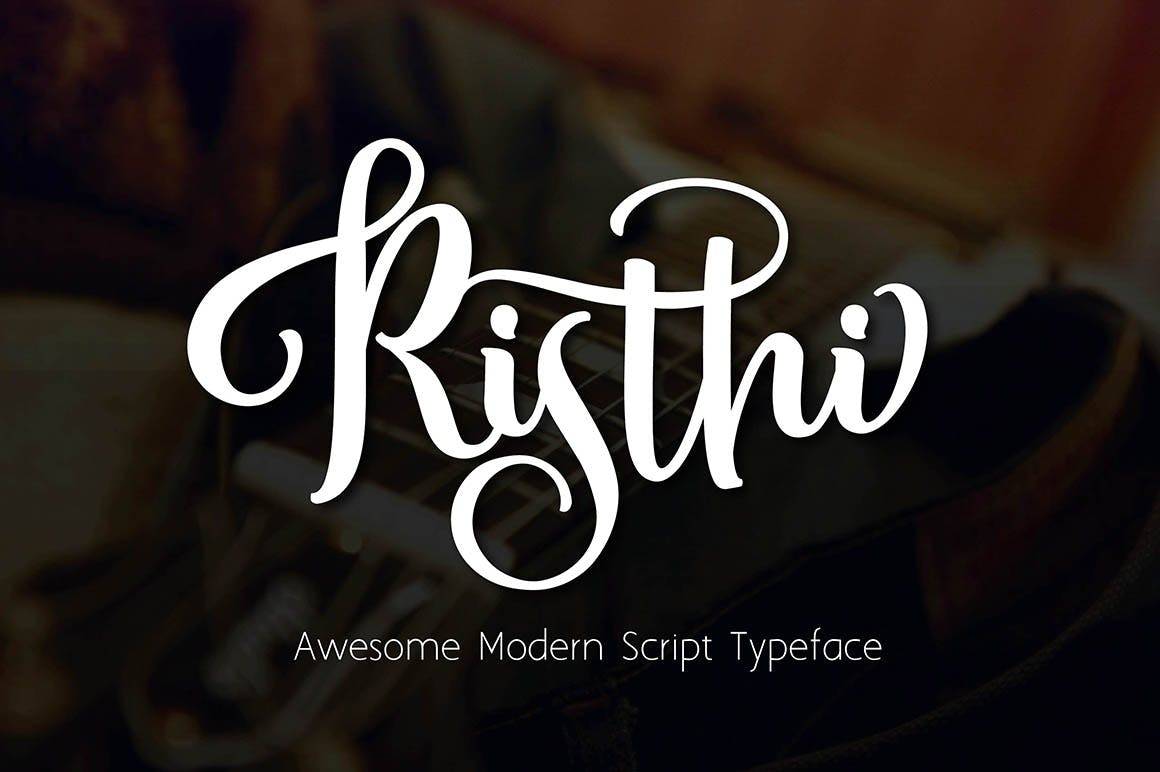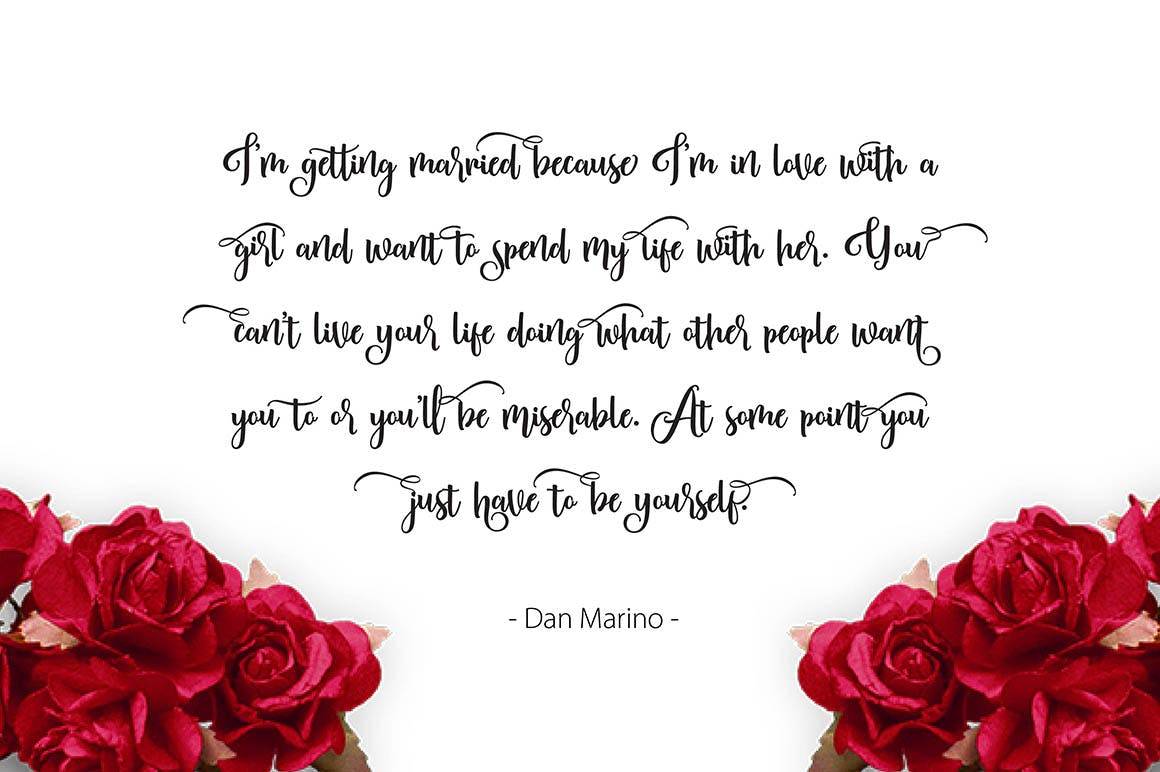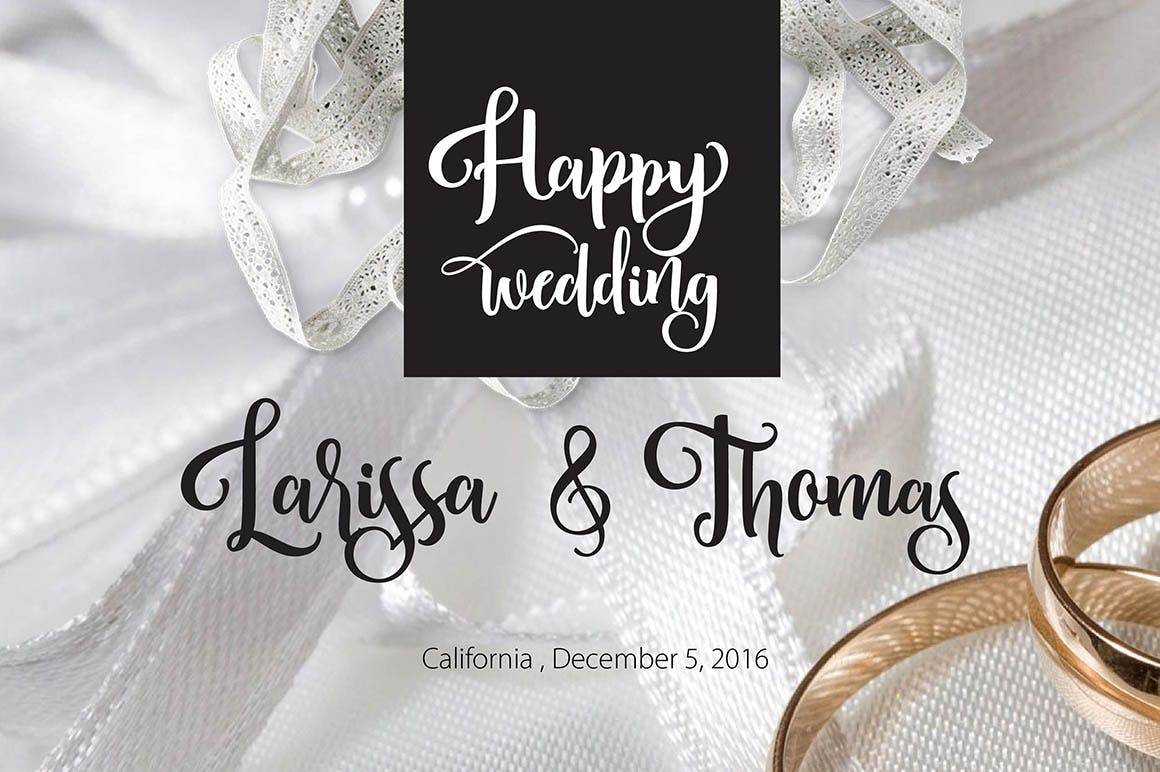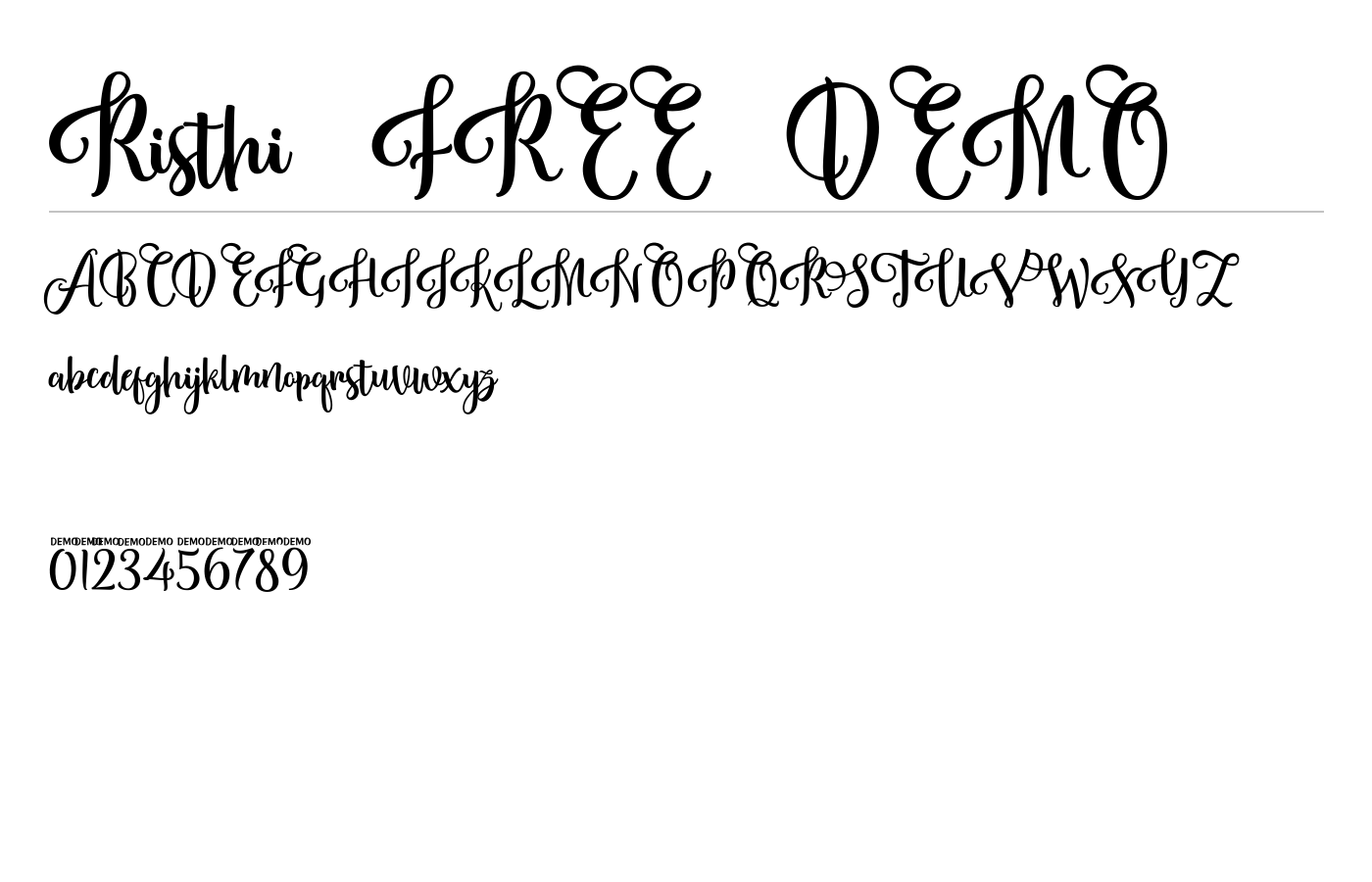
Risthi Script Demo is an elegant and decorative script font with flowing, curly strokes that convey a playful yet sophisticated feel. Its slender letterforms combine smooth curves and whimsical loops, making it ideal for creative branding, invitations, and feminine or artistic design projects. This font works well in headlines or logos where a charming and graceful style is desired.
Risthi Script Demo Typeface
About Risthi Script Demo Typeface
| Font family | Risthi Script Demo Typeface |
| Designer | Olexstudio |